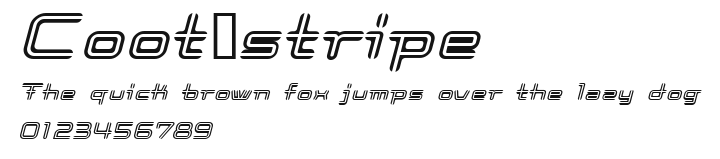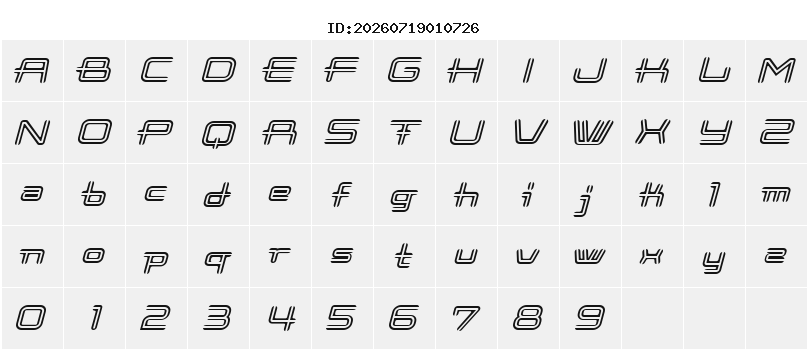
• Font Name: Coot_stripe
• Font ID: Macromedia Fontographer 4.1J Coot_stripe Italic
• Full Font Name: Coot_stripe Italic
• Version: Macromedia Fontographer 4.1J 02.12.14
• PostScript Name: CootstripeItalic
• Character Count: 82
• Copyright: Copyright(R)2002. Creation allrights reserved. Coot_stripe‐Italic. Designed by Masato Shimojima : Design studio creation.
About Coot_stripe.ttf
Coot_stripe.ttf is a modern, elegant sans-serif font designed for ultimate readability and visual harmony. Perfect for branding, headlines, web design, and print materials.